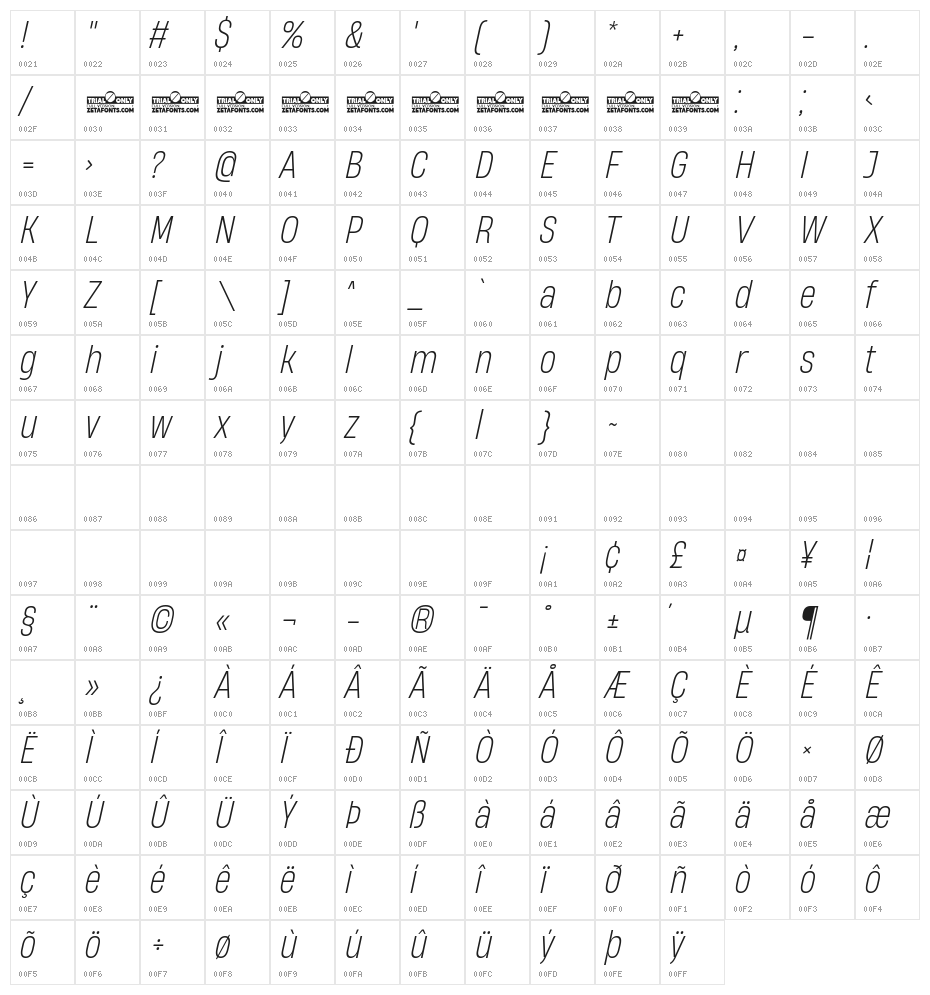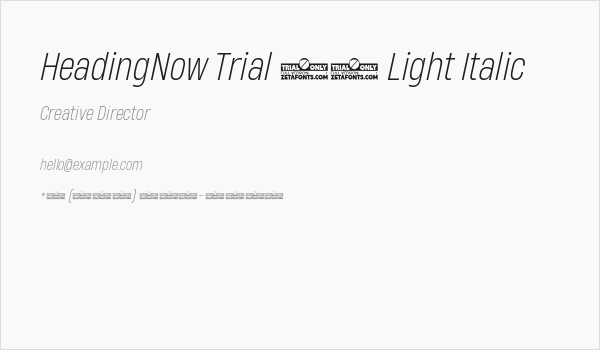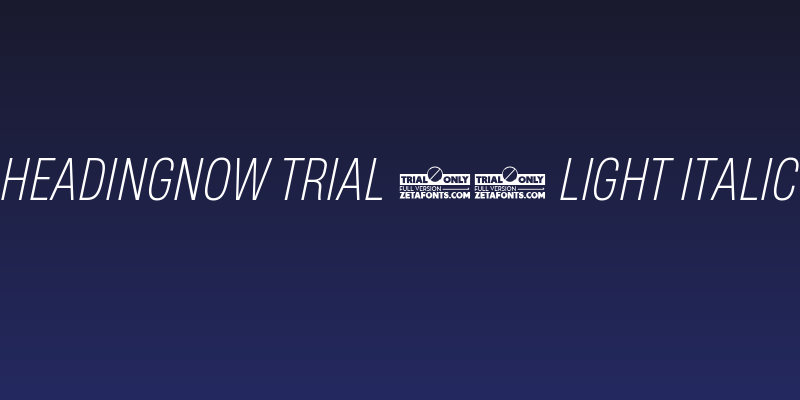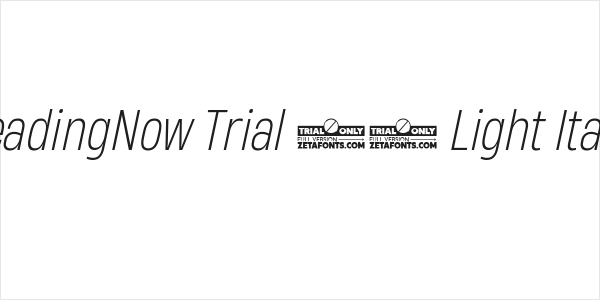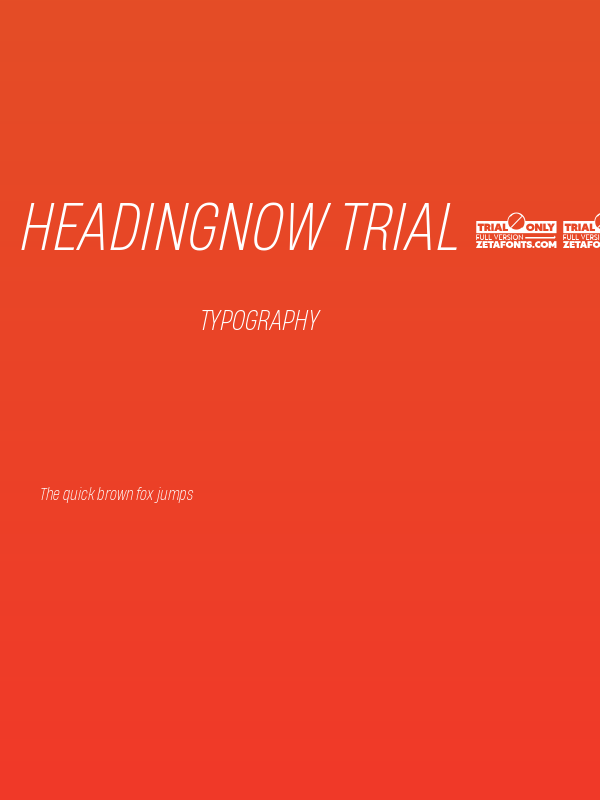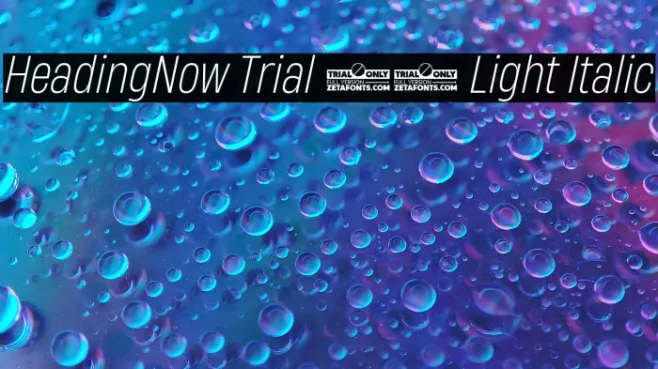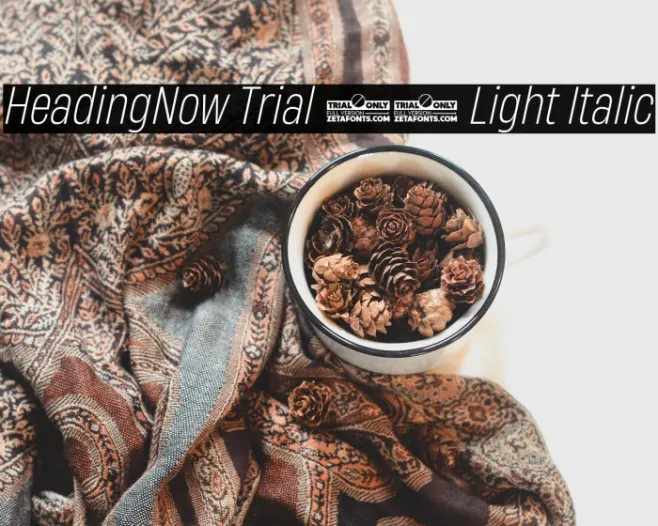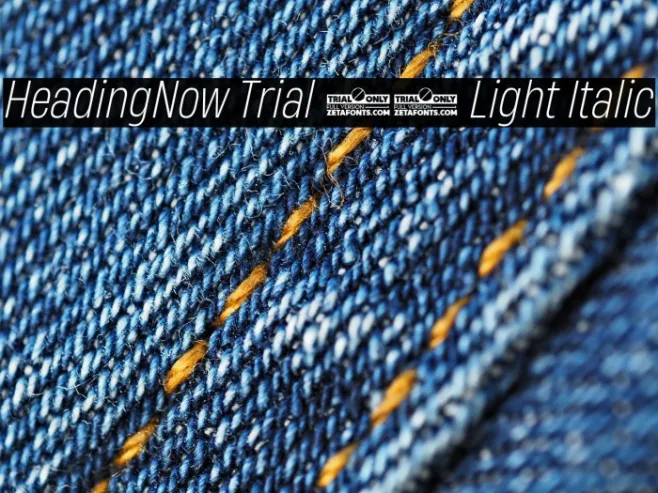
HeadingNow Trial 52 Light Italic Font
HeadingNow Trial 52 Light Italic Description
This font features a sleek and modern design with a light weight and italic style. The characters are elongated and slightly condensed, giving it a sophisticated and elegant appearance. The strokes are consistent and smooth, with a medium contrast that enhances readability. The overall design is clean and minimalistic, making it suitable for contemporary projects. The spacing between characters is normal, allowing for clear legibility even in smaller sizes. This font is versatile and can be used in various design contexts.
| Proposed Projects | Ideal for use in fashion magazines, modern branding, elegant invitations, and minimalist website designs. |